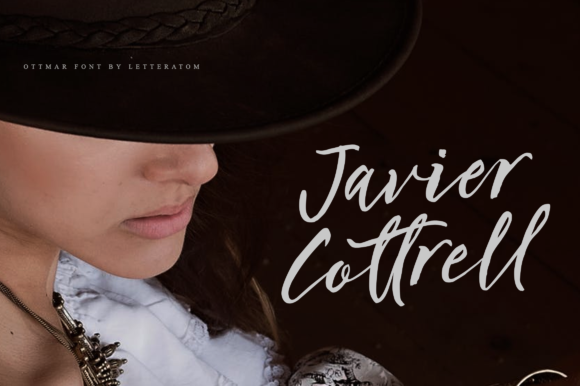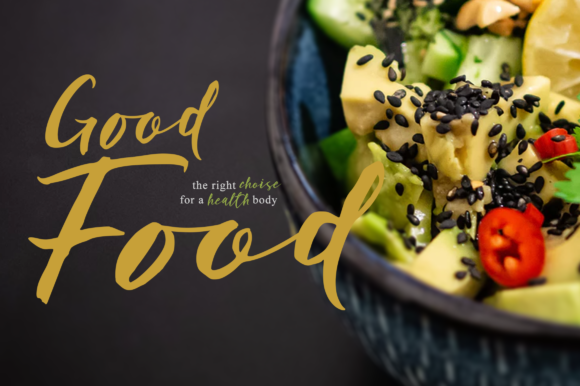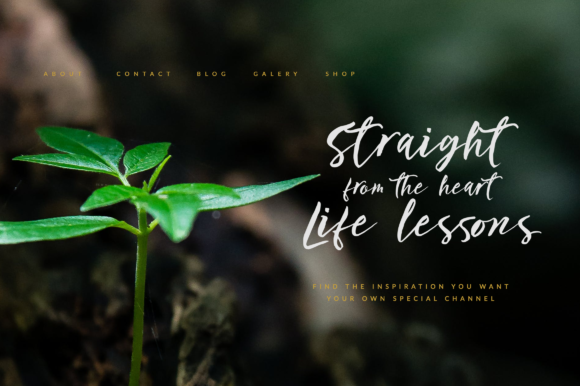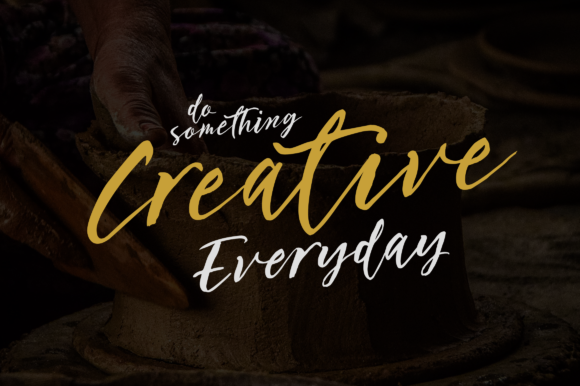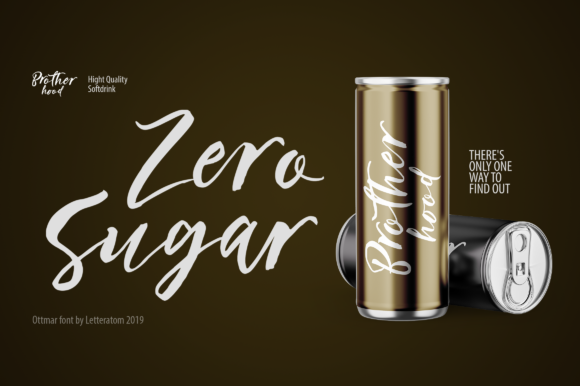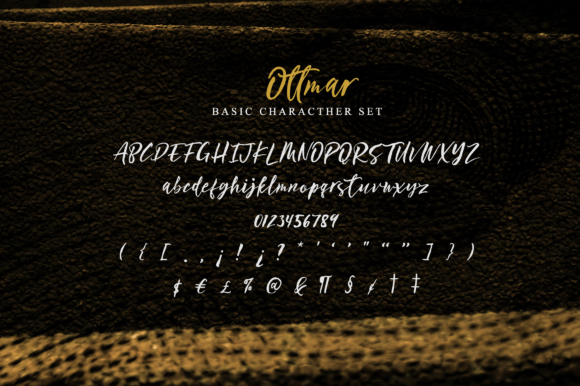
Introduction to Outtmar Font
Have you ever been stuck on a creative project, desperately searching for the perfect font to bring your idea to life? I know I have. The frustration of scrolling through endless options, only to settle for something that’s just “fine” – it’s a designer’s worst nightmare. But what if I told you that there’s a font out there that can change the game? Say hello to Outtmar Font, a bold and fun script with an elegant feel that’s sure to elevate your design.
As a valuable resource for designers, Outtmar Font offers a high-quality, transparent background that’s perfect for any creative project. With its unique look, you’ll be able to add a touch of sophistication to your designs, making them truly stand out from the crowd. And the best part? You can download it for free, making it an essential design resource for anyone looking to take their work to the next level.
Key Features of Outtmar Font
- High-quality design: Outtmar Font is a carefully crafted, professional-grade font perfect for creative projects.
- Transparent background: The font’s transparent background allows for seamless integration with any design or background image.
- Unique characteristics: The font features a unique, modern design with clean lines and elegant typography, making it ideal for creative projects.
- Resolution: The font is designed at a high resolution, ensuring crisp and clear rendering on various devices and screens.
Honest Review: Outtmar Font
I recently had the chance to work with the Outtmar Font, and I must say it’s been a game-changer for my creative projects. The font is available for free download, which is a huge plus for designers on a budget. The high-quality design is evident in every detail, from the sleek lines to the elegant typography.
What works well is the transparent background, which makes it easy to integrate the font into any design without worrying about unwanted color clashes. The font is also incredibly versatile, suitable for a wide range of creative projects, from logos to marketing materials.
- ✨ High-quality design: The Outtmar Font is well-crafted and looks professional, making it a great addition to any design portfolio.
- ✨ Transparent background: This feature allows for seamless integration into any design, reducing the risk of color clashes.
⚠️ Limitations: The font may not be suitable for complex, multi-layered designs, as the transparent background can sometimes cause issues with layering.
Overall, I’m really impressed with the Outtmar Font. It’s a fantastic design resource that’s perfect for creative projects. If you’re looking for a high-quality, free font, I’d definitely recommend giving it a try.
Tips for Getting the Most Out of Outtmar Font
For the best results, use Outtmar Font on a high quality design project, such as a logo or branding materials. The font’s transparent background feature makes it ideal for creative projects that require a clean and minimalist look.
Common Use Cases for Outtmar Font
The Outtmar Font is ideal for a variety of creative projects, including logos, business cards, and social media graphics. Its high quality design and transparent background make it a valuable design resource for any project that requires a clean and modern look.